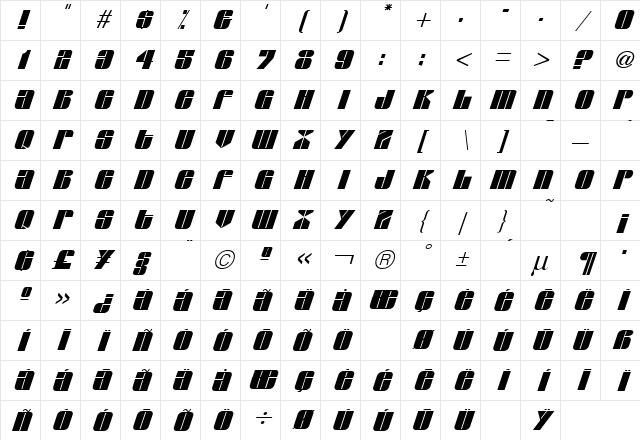
Glyphic Series Italic
Design Context for Glyphic Series
Glyphic Series is a composed and adaptable typeface that performs quietly and consistently across a wide range of design contexts. The slanted form adds forward momentum and visual energy.
Pro Tip: Use Glyphic Series for emphasis, pull quotes, and subheadings where its slanted energy can add rhythm to the layout.